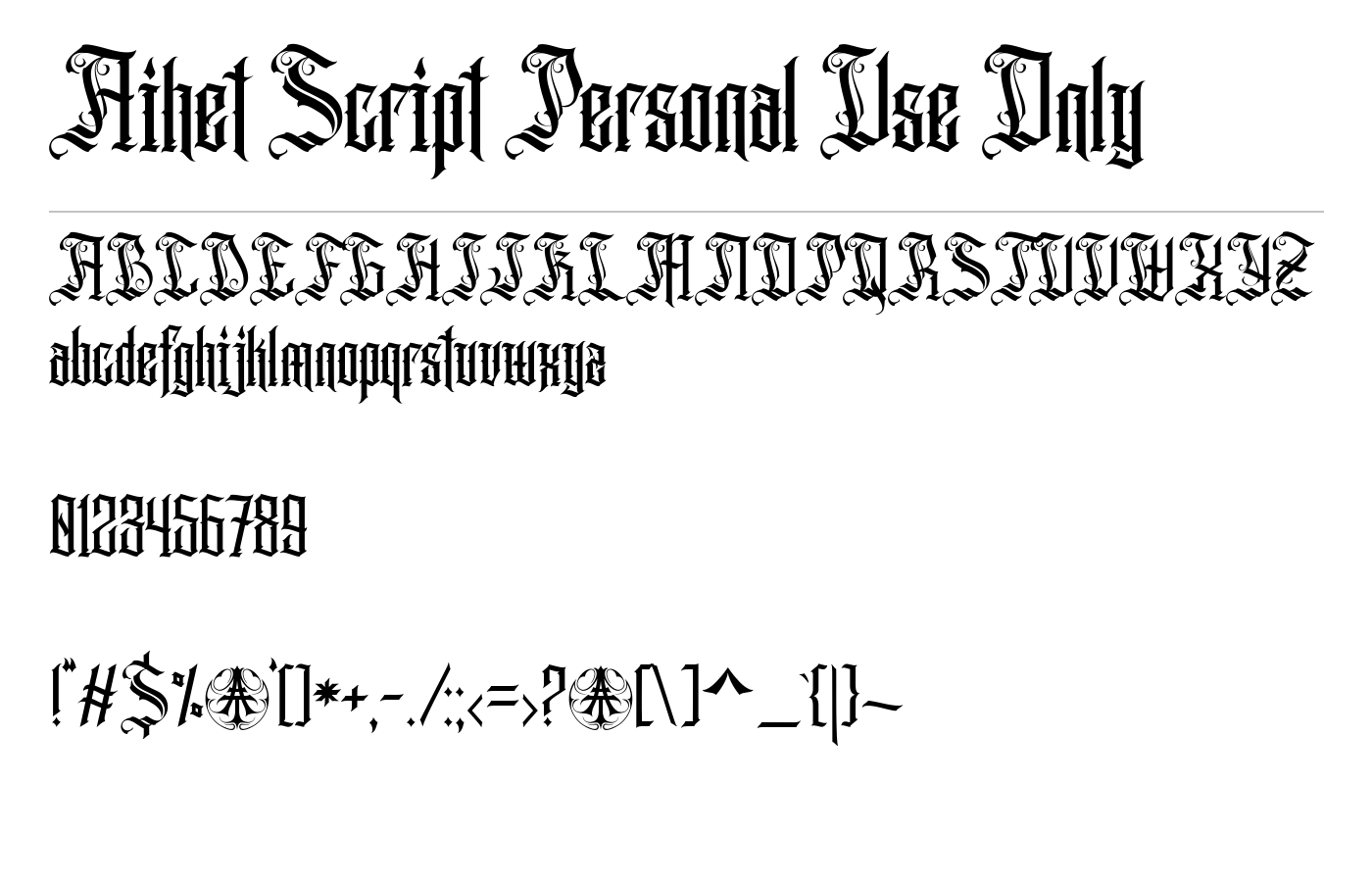
Aihet Script Personal Use Only is a bold, blackletter-style serif font with sharp, angular strokes and high contrast between thick and thin lines. Its ornate uppercase letters feature intricate flourishes, while the lowercase maintains a dense, gothic feel with a narrow, condensed width. This font conveys a strong, dramatic, and vintage medieval character, making it ideal for logos, posters, or designs seeking an old-world, historic, or gothic vibe.
Aihet Script Personal Use Only Font
About Aihet Script Personal Use Only Font